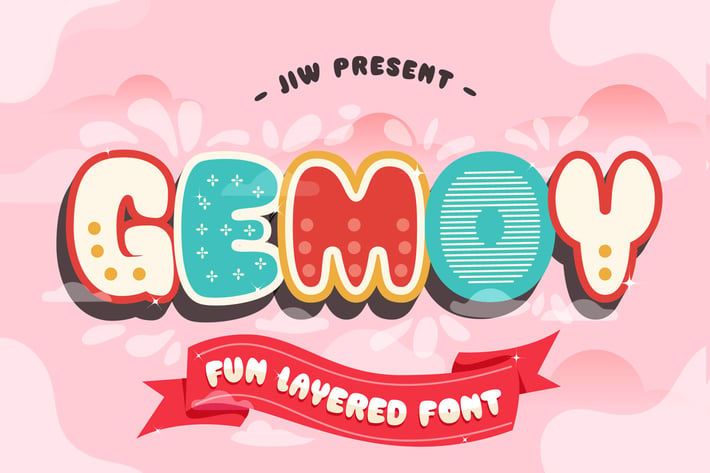
GEMOY - Fun Layered Font
Gemoy Layered Font
Gemoy, A new carefully crafted layered rounded Typeface. The Ideas of this fonts are from wide range of reference, baby, kids, school, cafe, food desert & beverages are our main focus for this fonts. So the looks of this fonts must be in the wide range of the reference above. It’s Versatile, Fun, Cute and Beauty feel that you get in Gemoy Typeface. Perfect fitted layer to give you a more contrast, more bold look of the title.
Gemoy Created with 7 Layer :
Base
Extrude
Shadow
Dot
Flower
Hatch
* Inline.